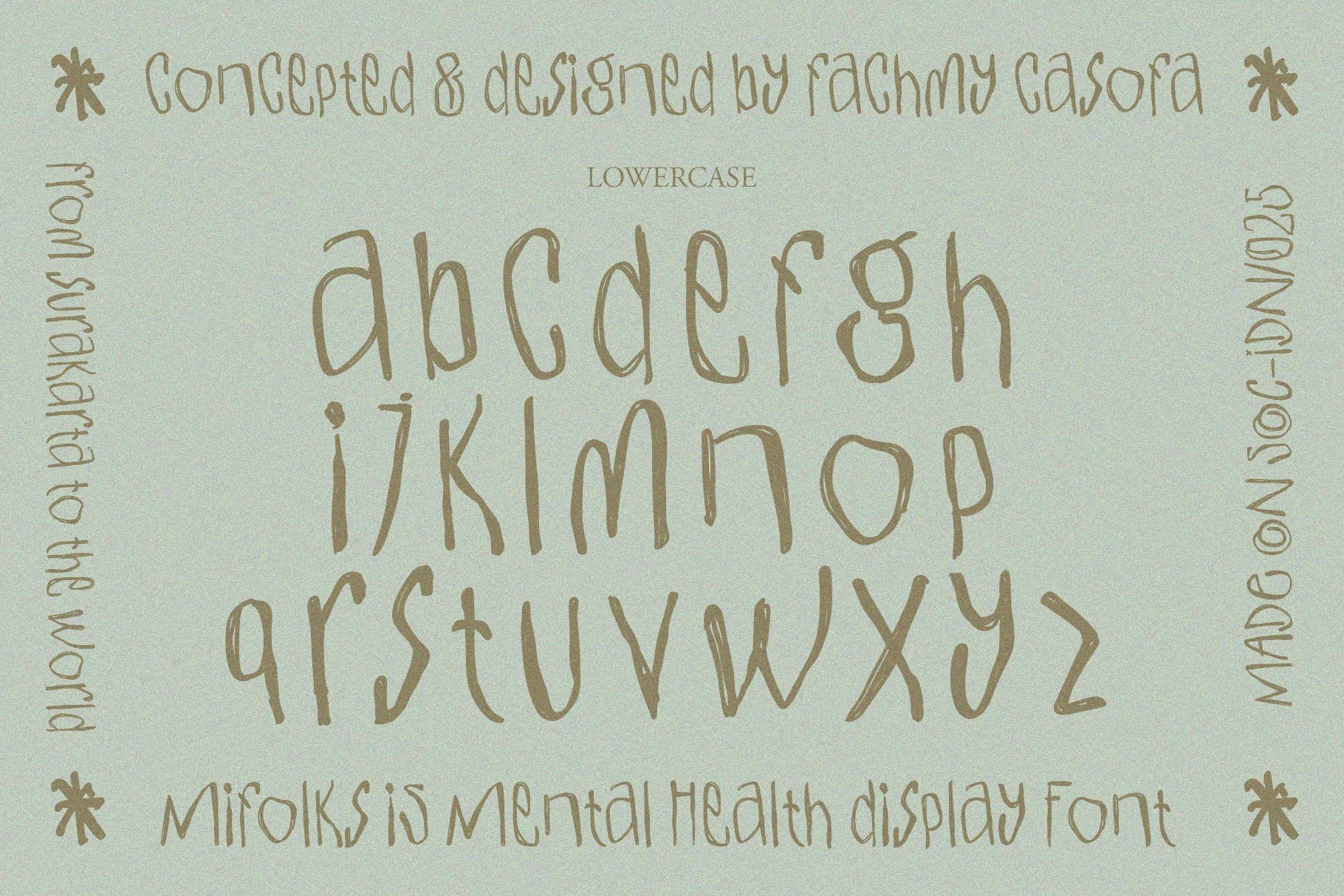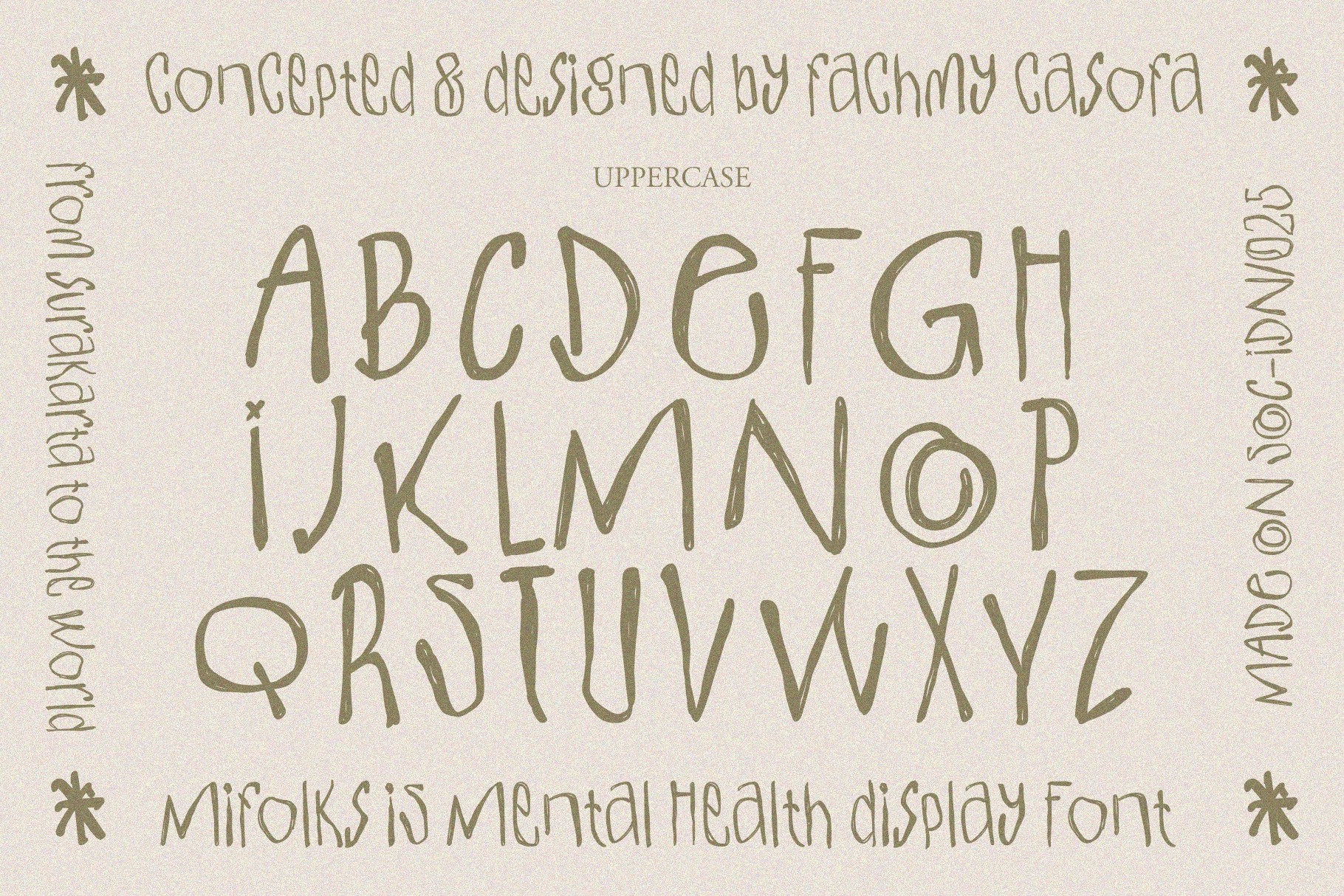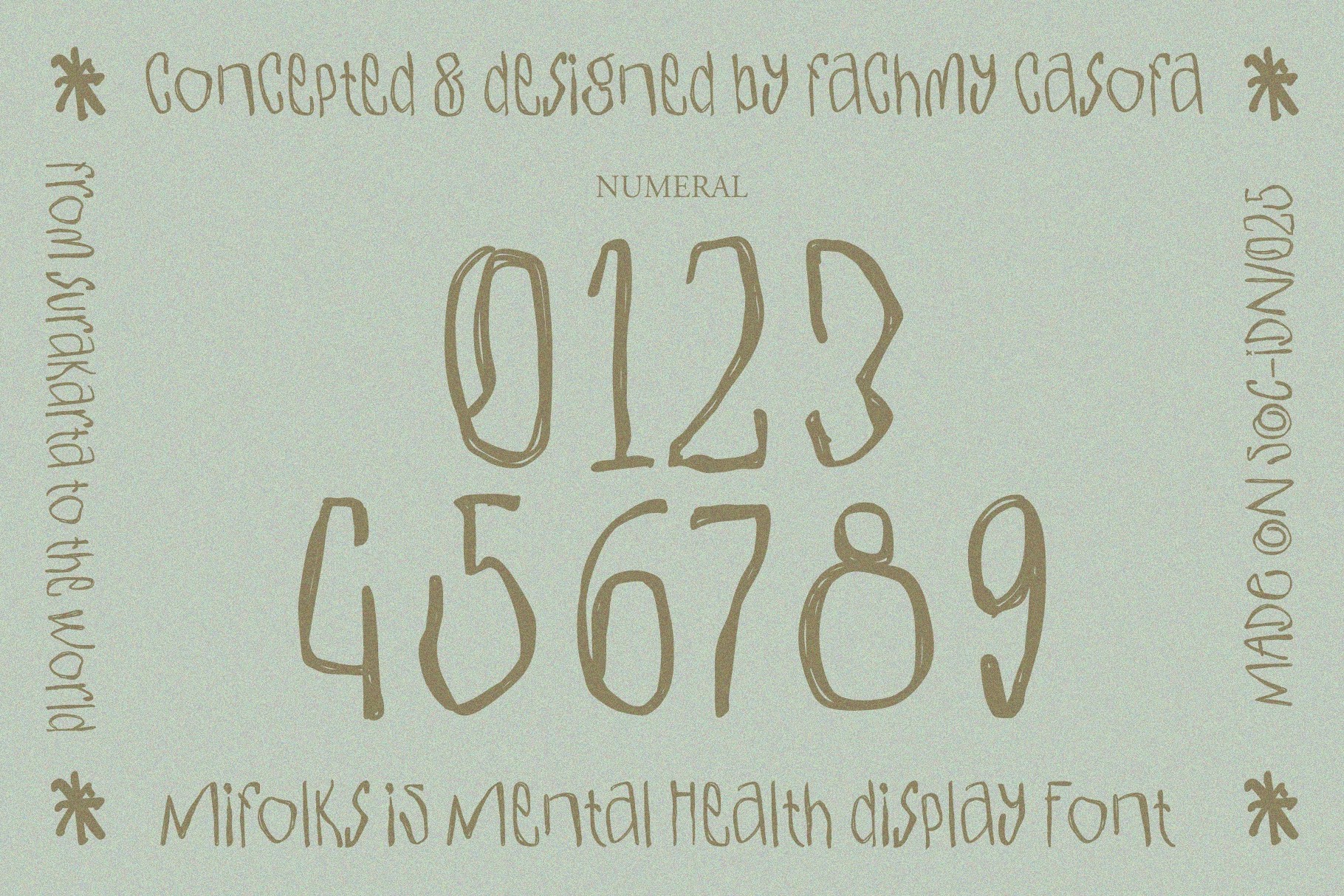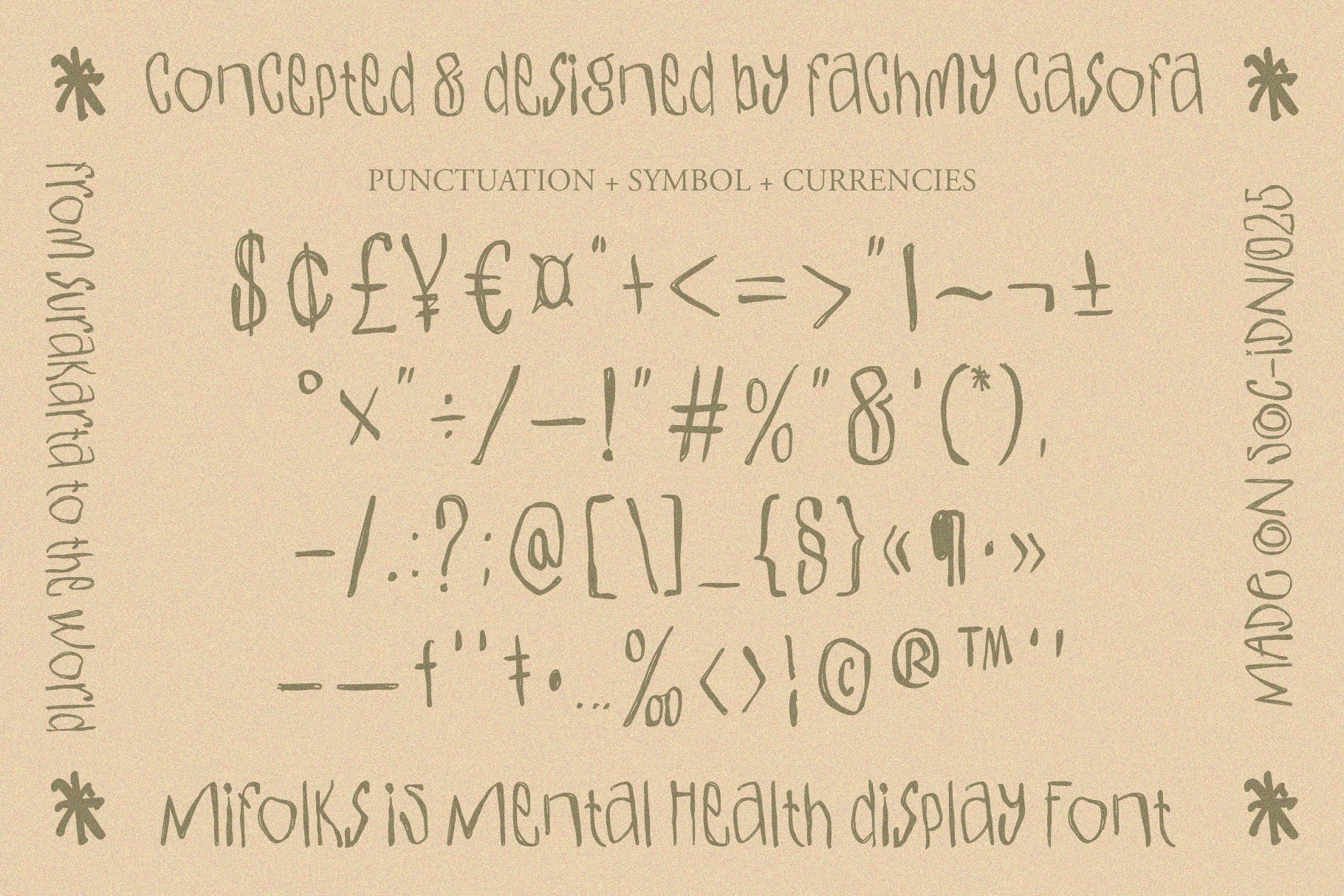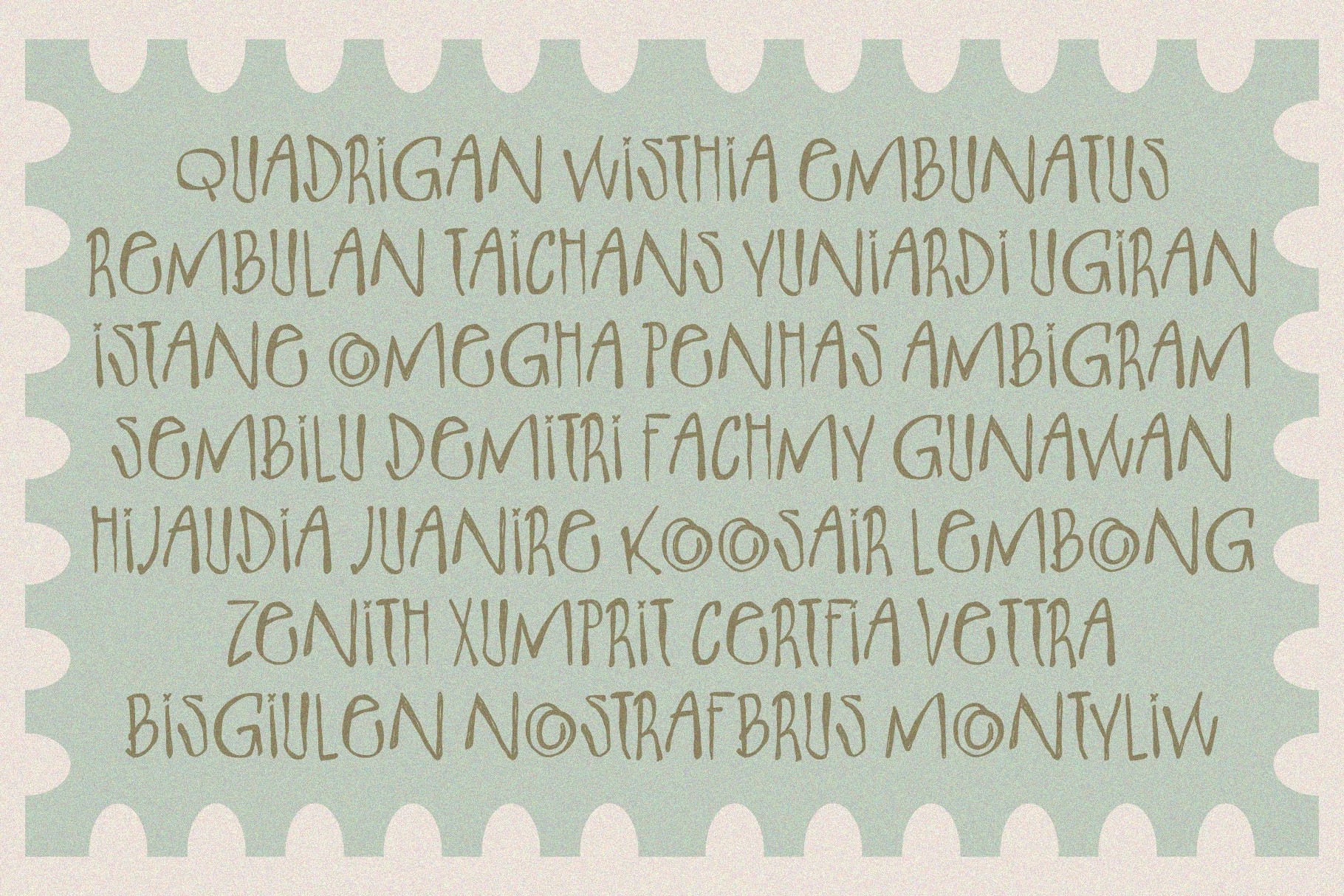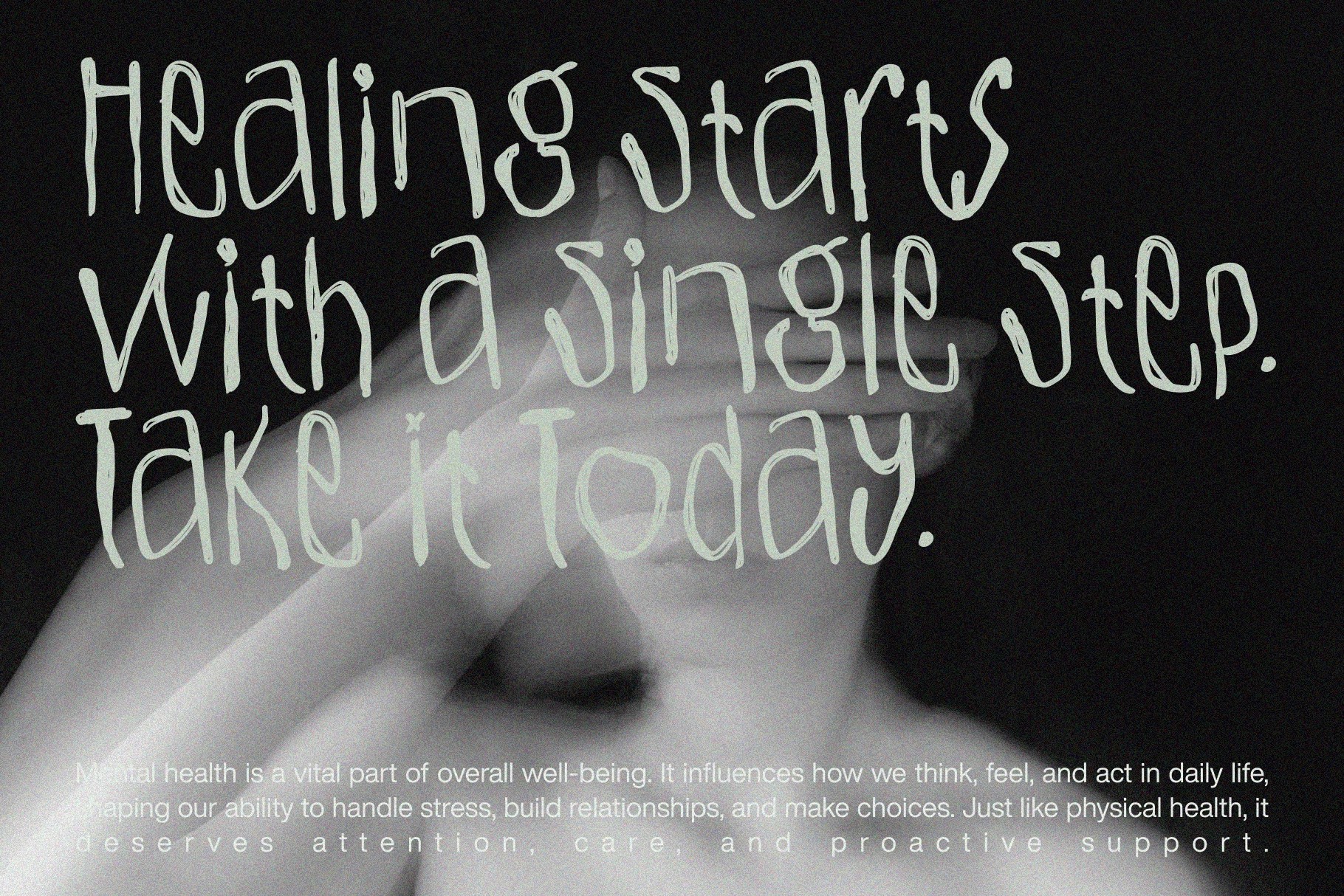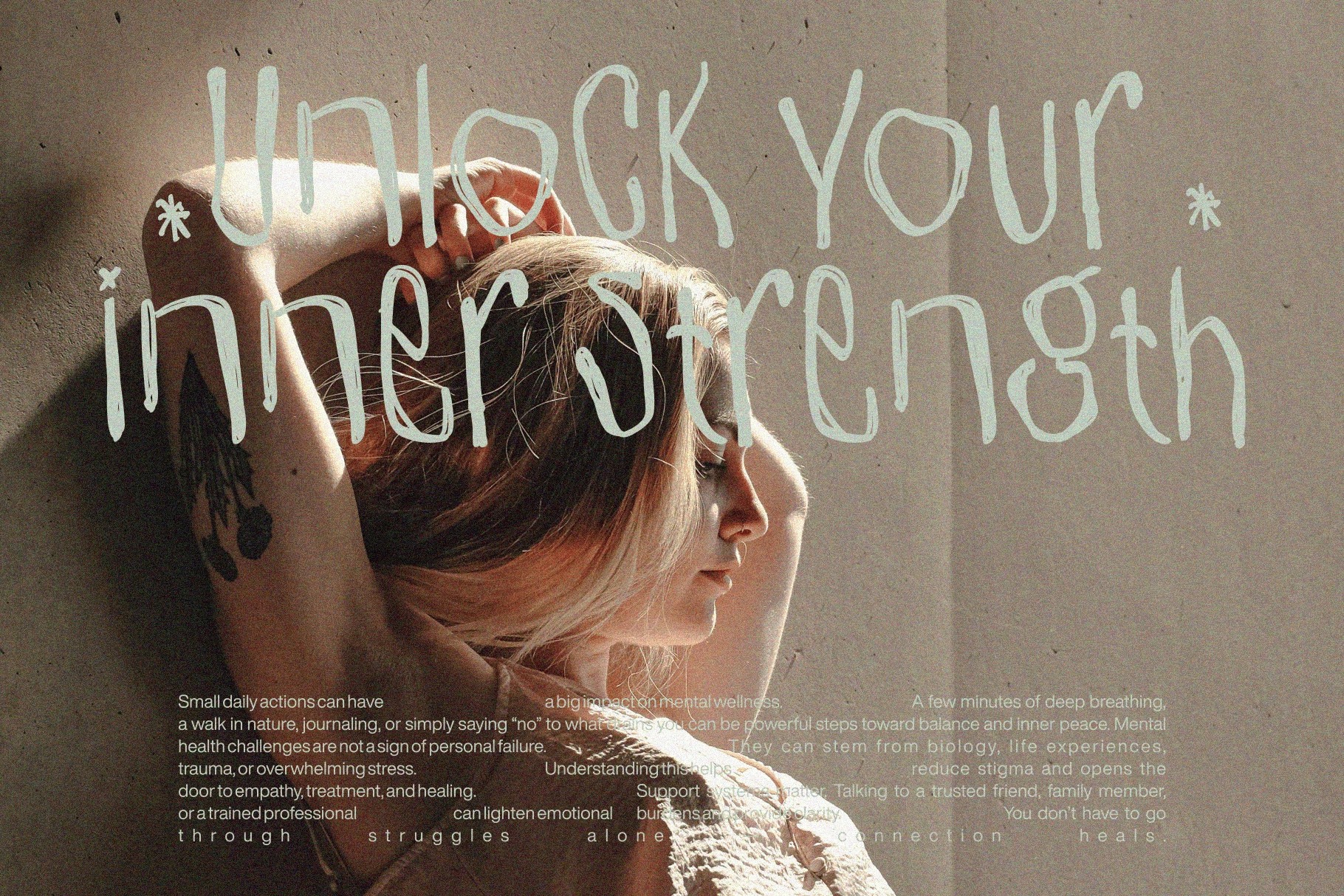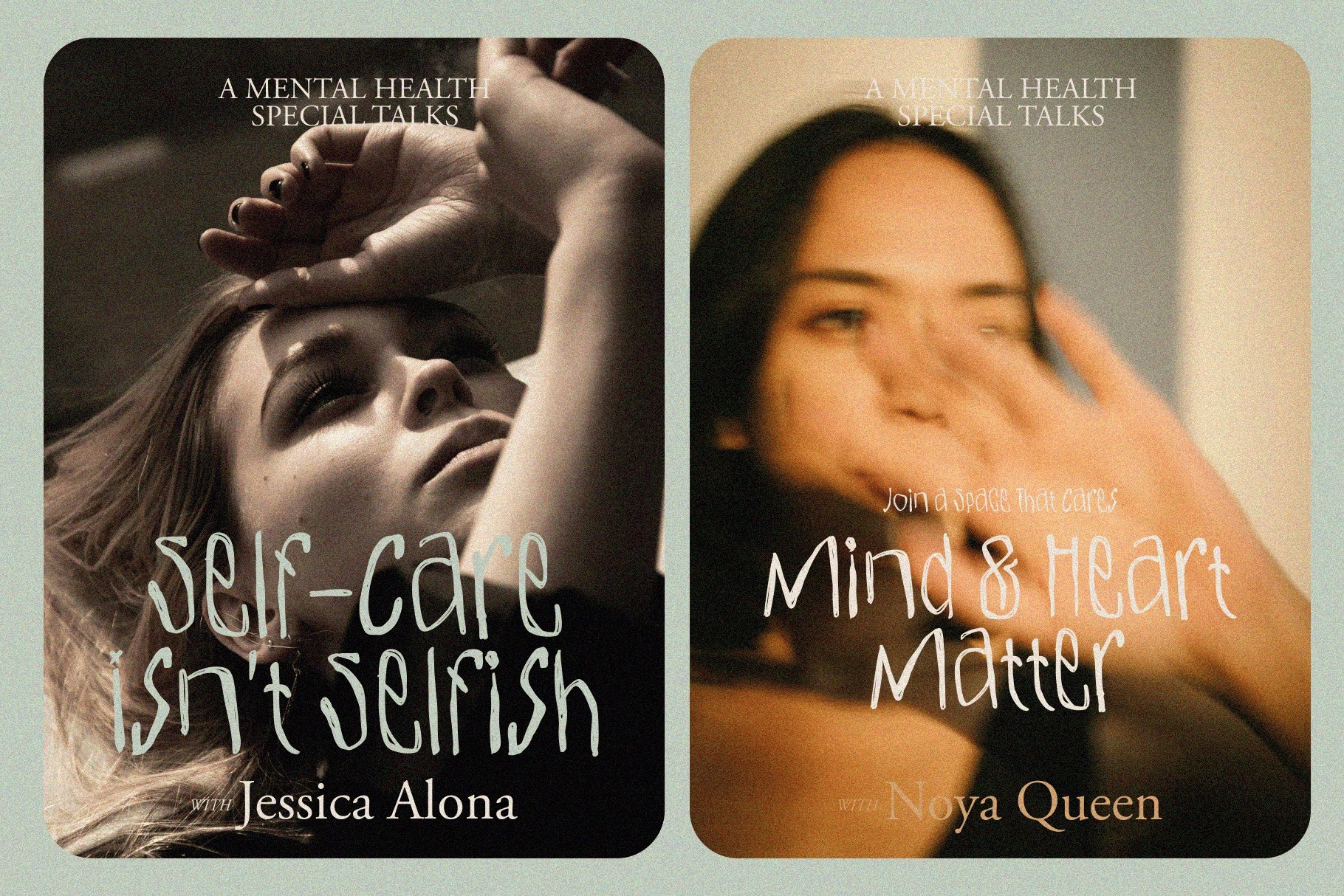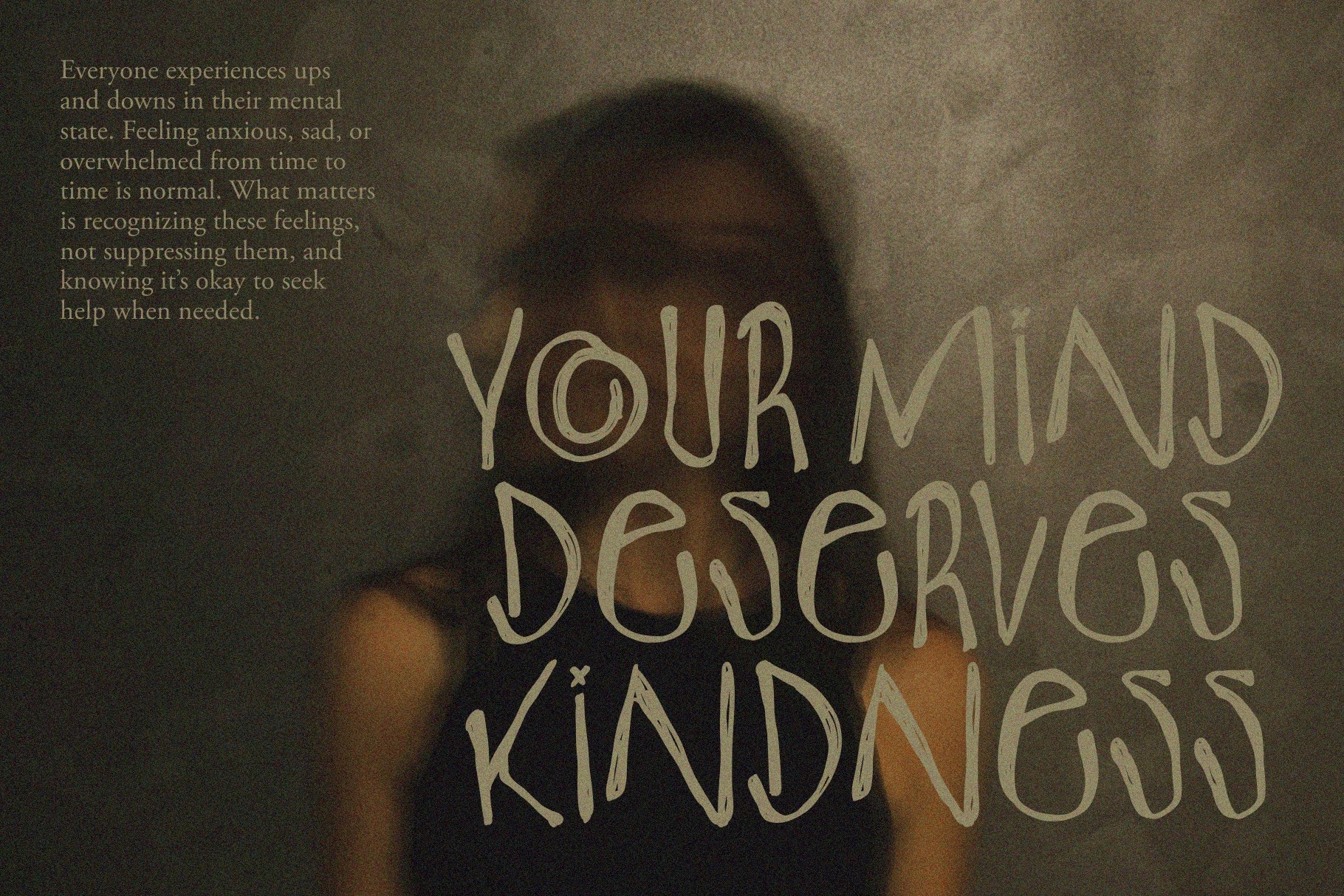
MIFOLKS — Naive Handwritten Font
A rough handwritten display font with tall, uneven letters, loose marker strokes, and a deliberately human rhythm. Its quirky character gives posters, journals, awareness graphics, and personal branding a raw voice that reads sincere rather than polished for committee approval.
MIFOLKS works well for mental health campaigns, self-care journals, therapy worksheets, mindfulness cards, spiritual retreat materials, podcast covers, YouTube thumbnails, nonprofit posters, wellness packaging, social media quotes, zines, and community event graphics. The letterforms are irregular, open, and expressive, with enough clarity for headlines, short statements, and emotional design pieces.
• Currency symbols
• Naive handwritten style
• Rough organic strokes